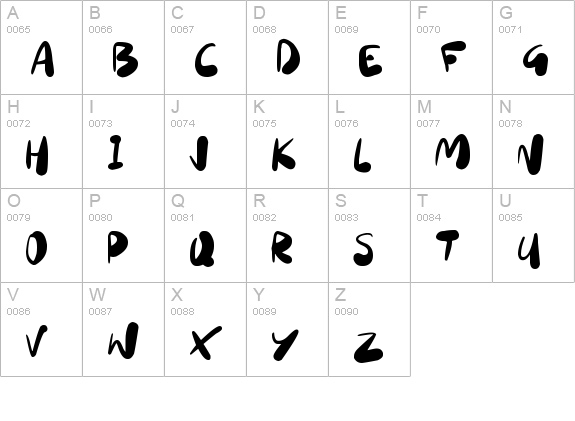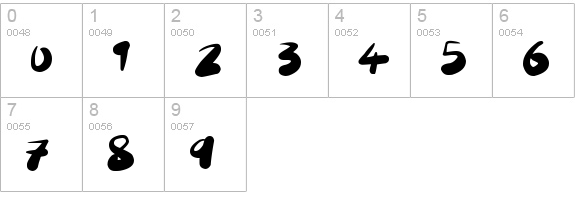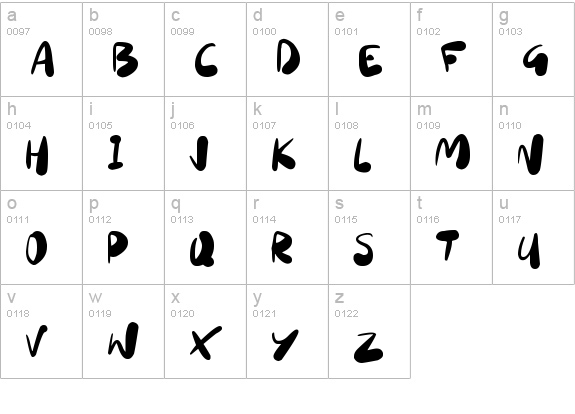
Sourdough font is a charmingly rustic typeface that exudes warmth and character. With its handcrafted appearance and unique, slightly irregular letterforms, Sourdough brings a touch of artisanal flair to any project. This versatile font is perfect for adding a cozy, homemade feel to your designs, whether you're working on branding, packaging, invitations, or more.